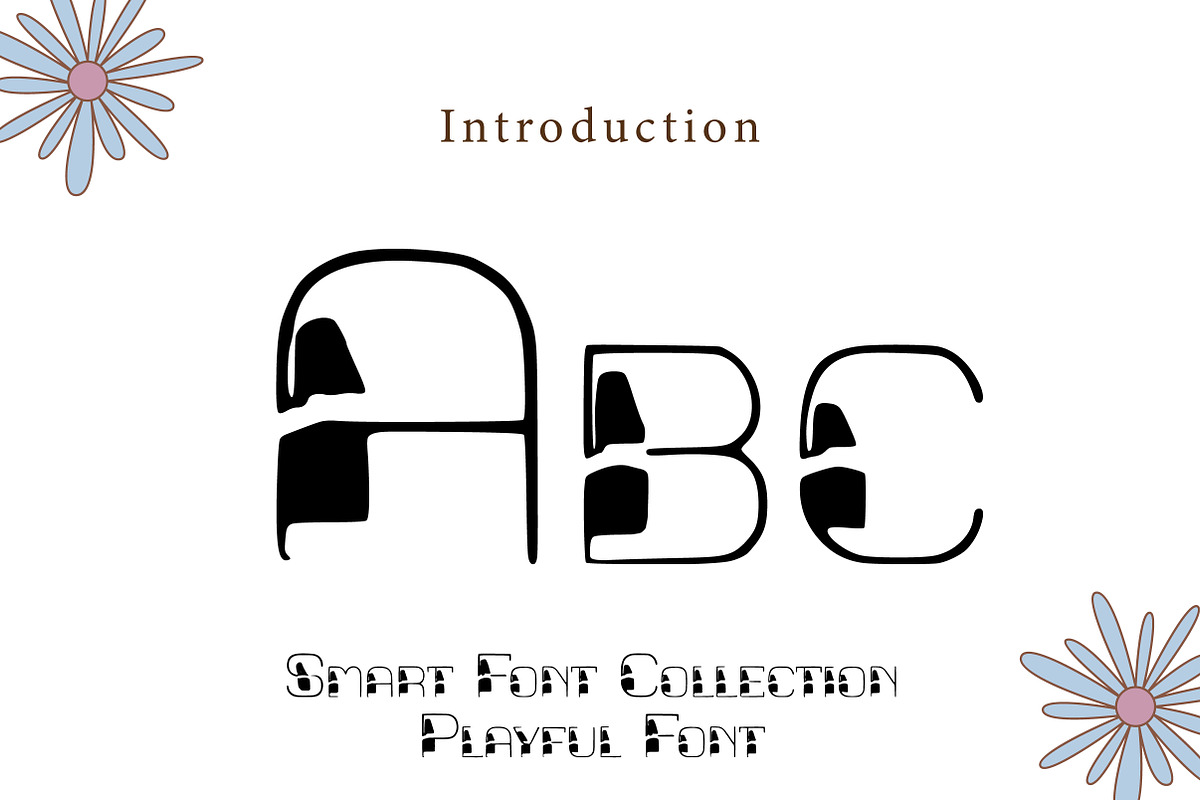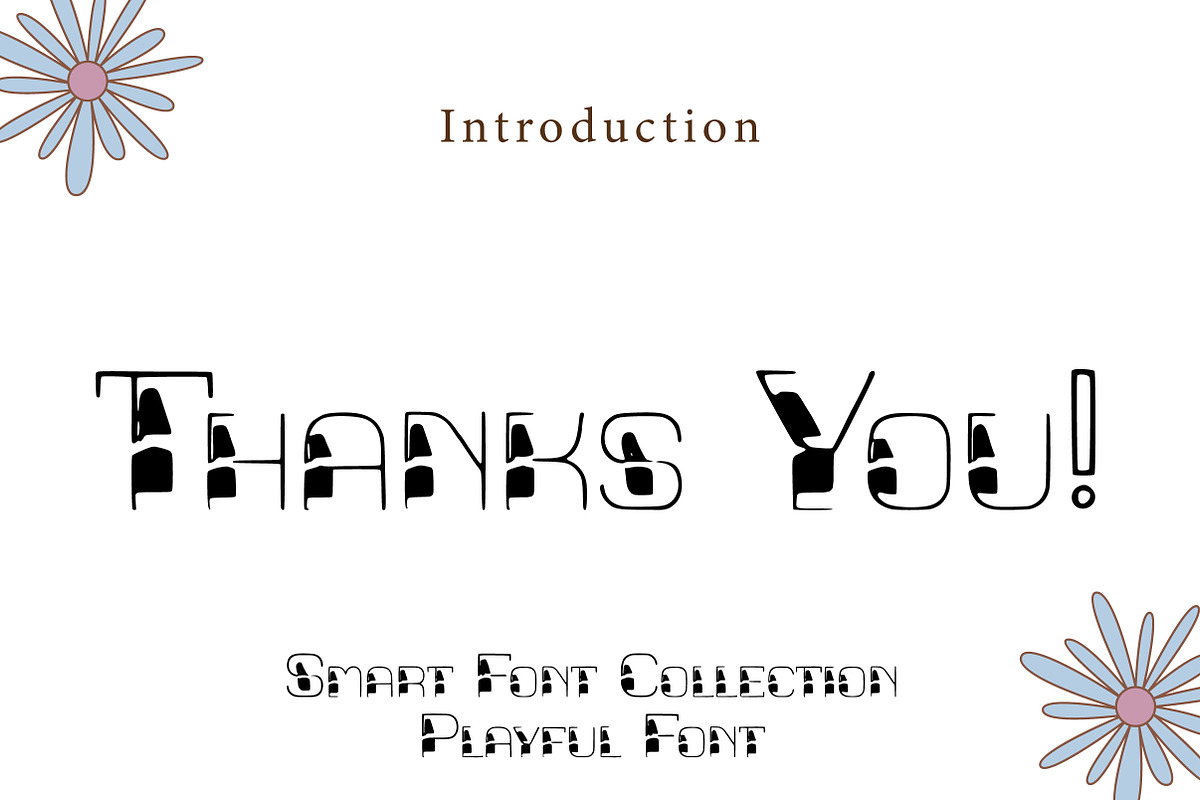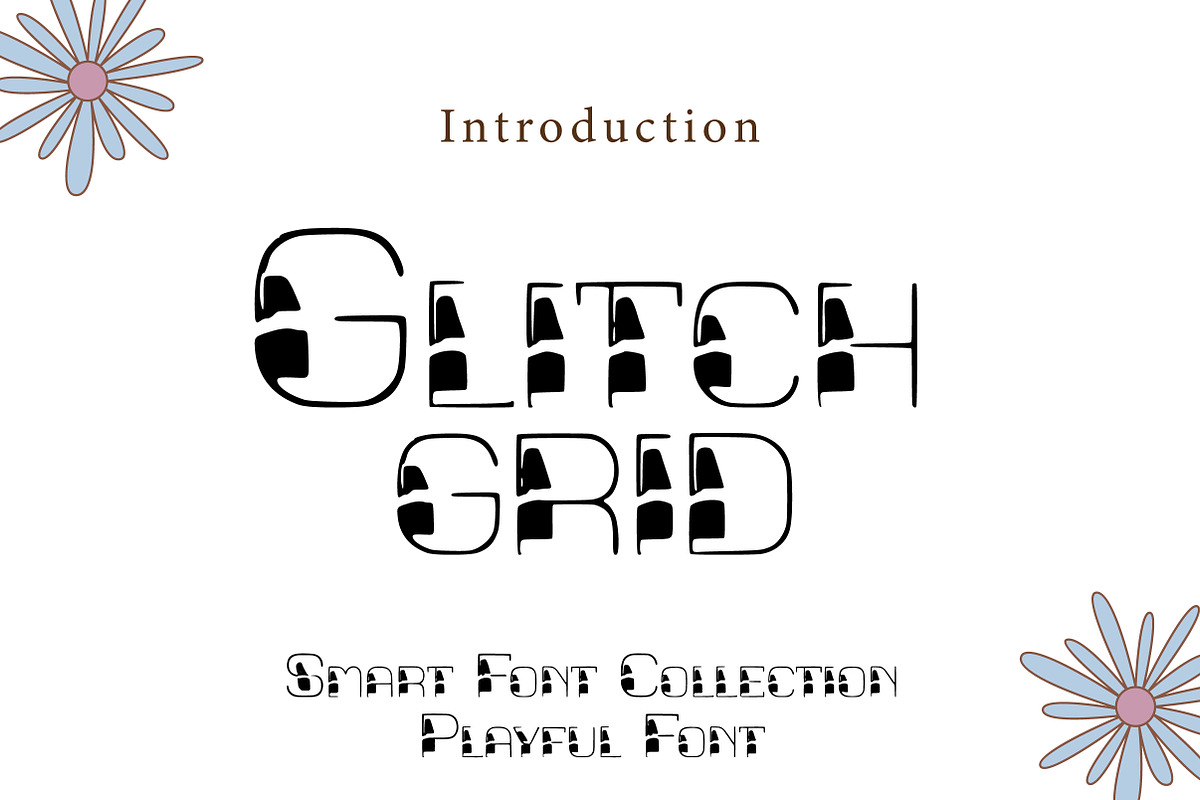
Glitch Grid
Glitch Grid is a bold experimental display font inspired by digital distortion, cyber glitches, and futuristic grid aesthetics. Featuring sliced strokes, broken segments, and techno-style curves, this font creates a powerful glitch effect that instantly grabs attention. The structured yet fragmented letterforms give it a strong sci-fi and cyberpunk personality.
Perfect for gaming titles, esports branding, tech posters, music covers, YouTube thumbnails, streaming graphics, futuristic logos, and digital artwork. Glitch Grid shines in large headlines where its distorted details can fully stand out.
If you're building a bold cyber-inspired identity or high-energy visual project, Glitch Grid delivers a modern, edgy, and tech-driven impact.